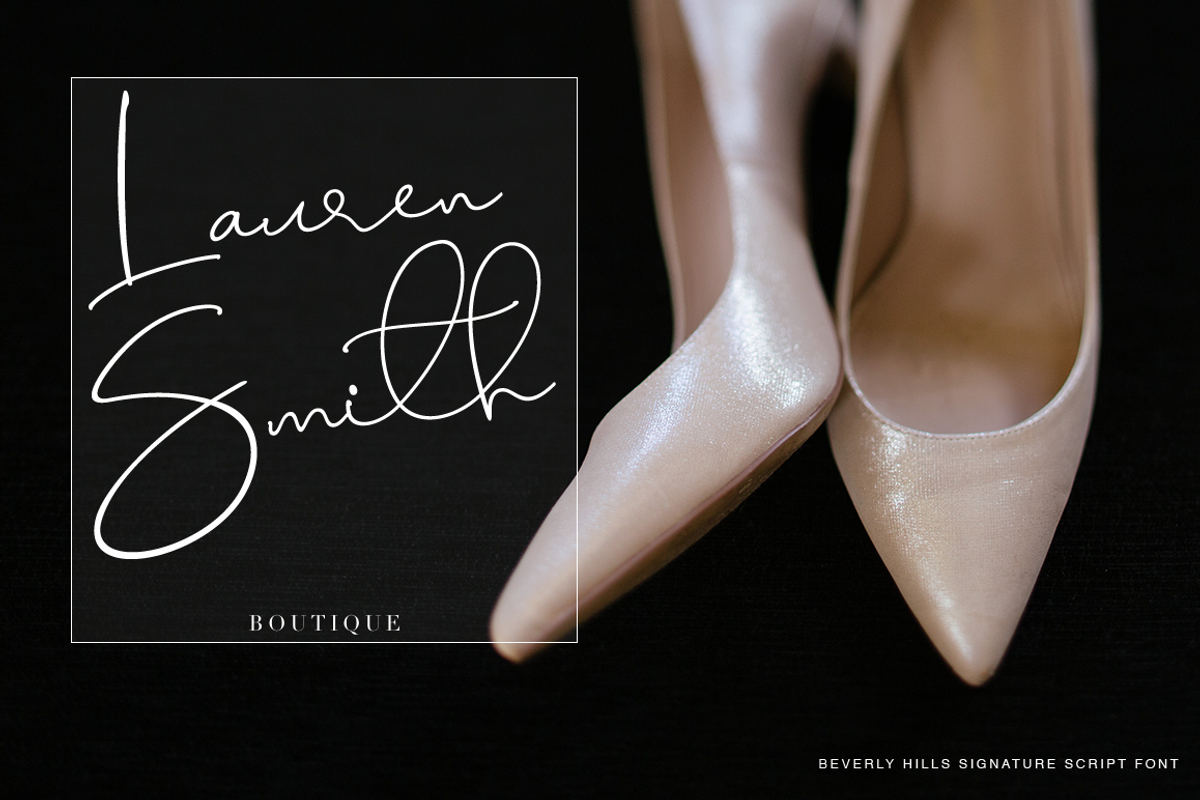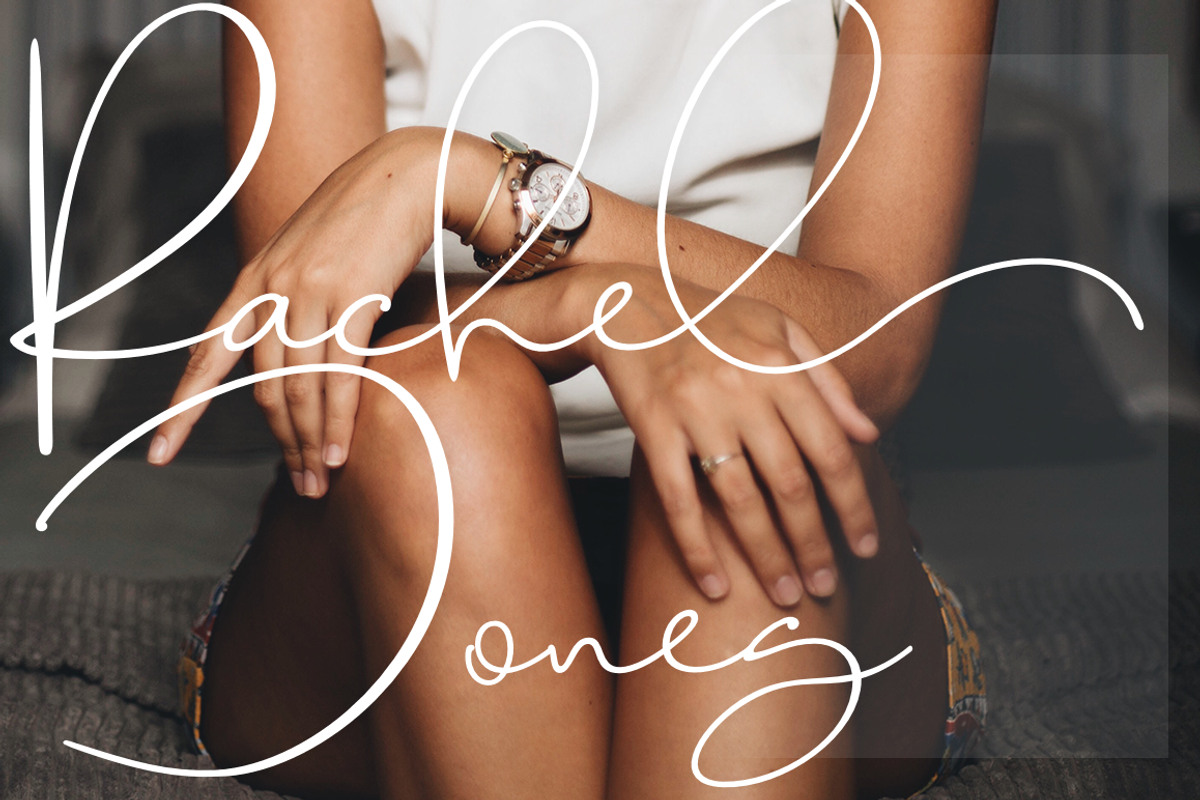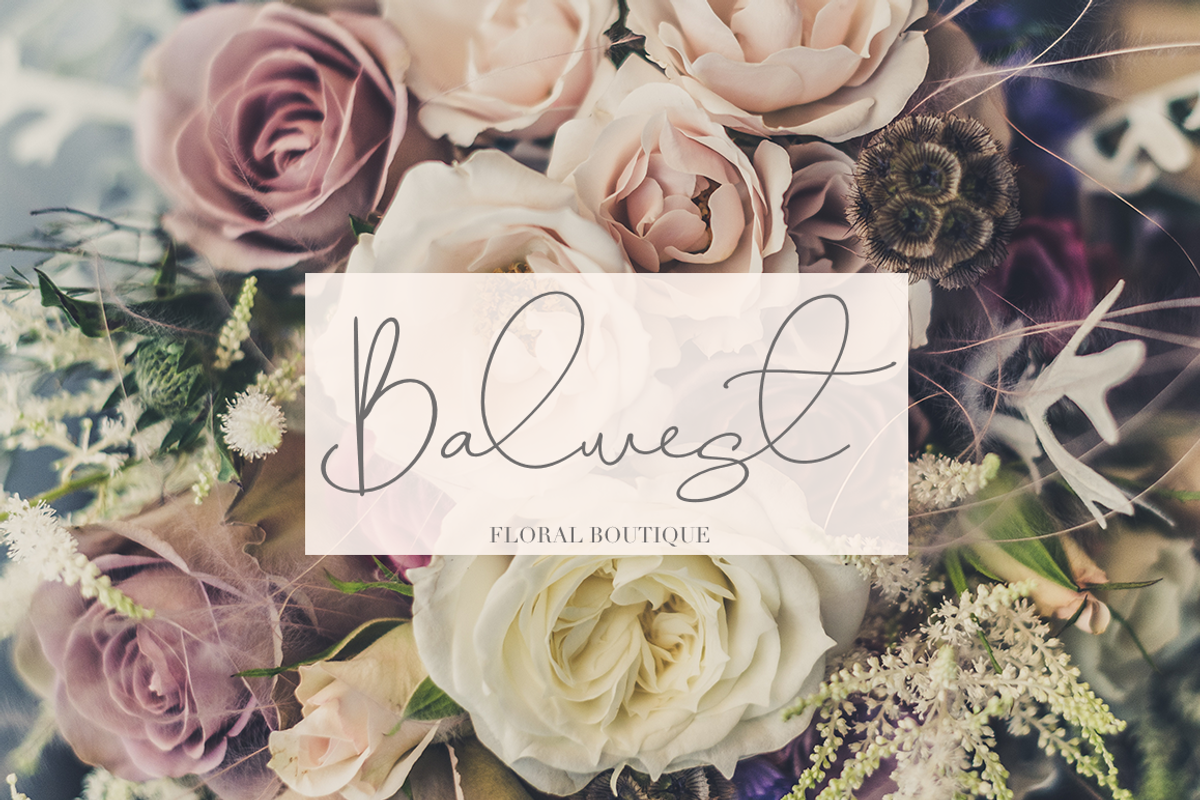
Beverly Hills
Beverly Hills script- a new fresh handmade font.
This font is ideal for branding and decorate your any project, are perfect for wedding invitation or your blog. Also with their help, you can create a logo or beautiful frame for your home. Or just use for your small business, book covers, stationery, marketing, magazines and more. Special for you I prepared a lot ligatures: tt, bb, ee, ff, kk, ll, mm, nn, oo, pp, rr, ss and stylistic alternates: e, f, k, l, m, n, p, r, s, t.